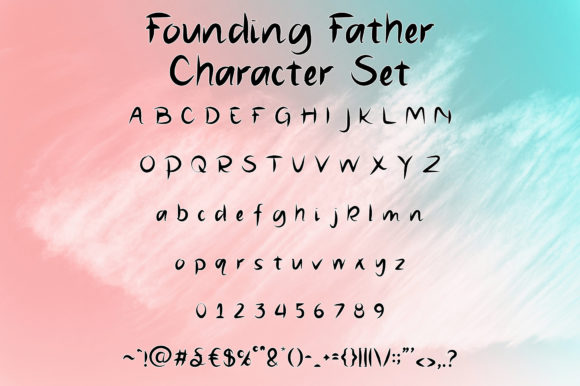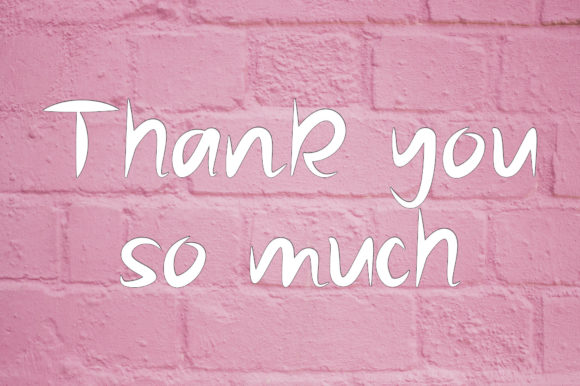
Introduction to Founding Father Font
Founding Father is a simple and chic handwritten font.
This adaptable font will look great on a variety of design ideas It will add a fun and friendly touch to each of your projects.
Key Features of Founding Father Font
Why Choose Founding Father Font?
Founding Father Font offers exceptional quality and versatility, making it a valuable addition to your design toolkit. Whether you’re creating for personal projects or commercial use, Founding Father Font delivers professional results.